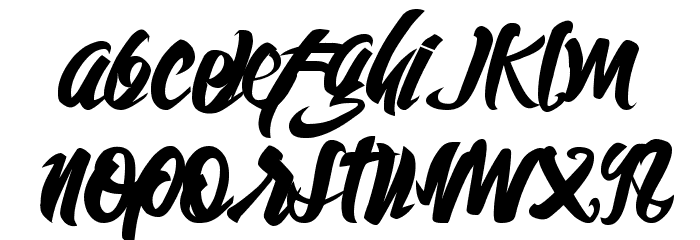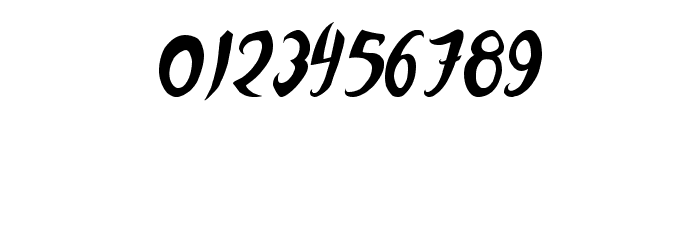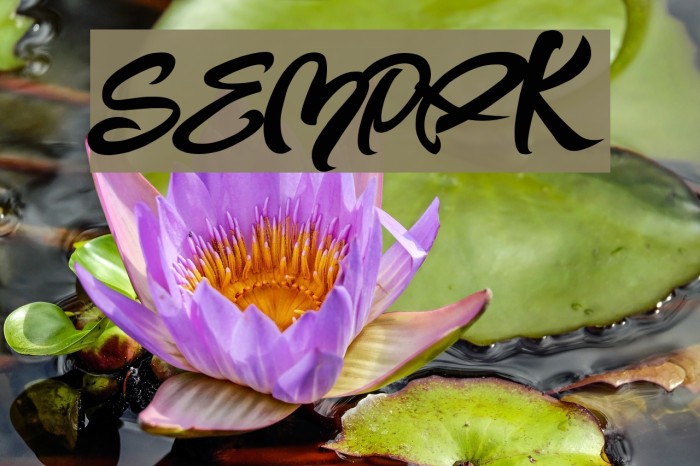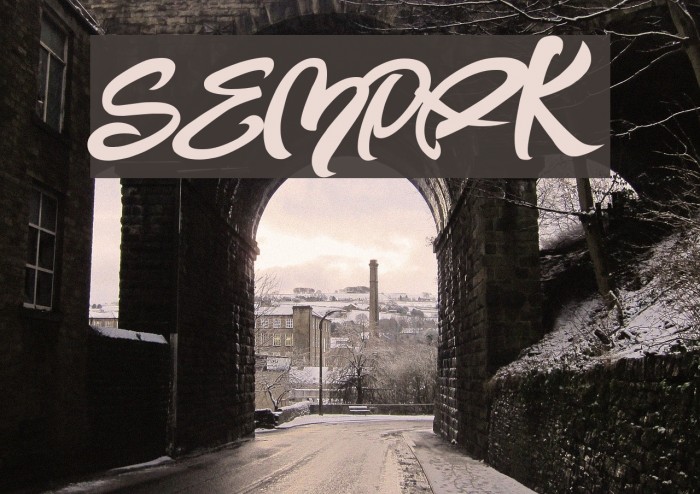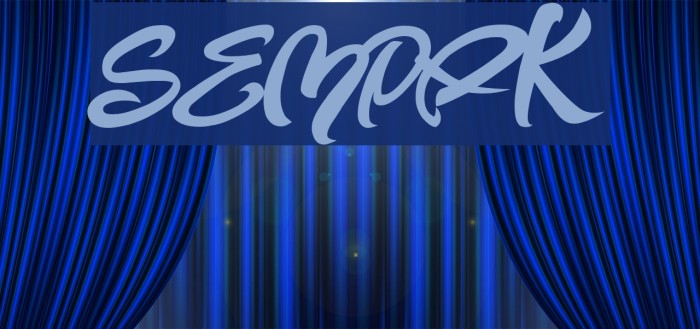
SEMPAK Font
This font features a bold and expressive script style with a dynamic flow. The characters are interconnected, giving it a handwritten appearance. The strokes are thick and consistent, providing a strong visual impact. The uppercase letters are particularly elaborate, with sweeping curves and loops, while the lowercase letters maintain a cohesive look. Numbers and special characters are designed to match the overall aesthetic, ensuring uniformity across all elements. This font is ideal for creating eye-catching designs that require a personal touch.
A bold, expressive script font with interconnected characters and a handwritten style.
- Proposed Projects: Ideal for branding, invitations, posters, and any design requiring a personal, artistic touch.
- Category: Script
- Character Spacing: Tight
- Use Case: Logos, Headlines, Invitations